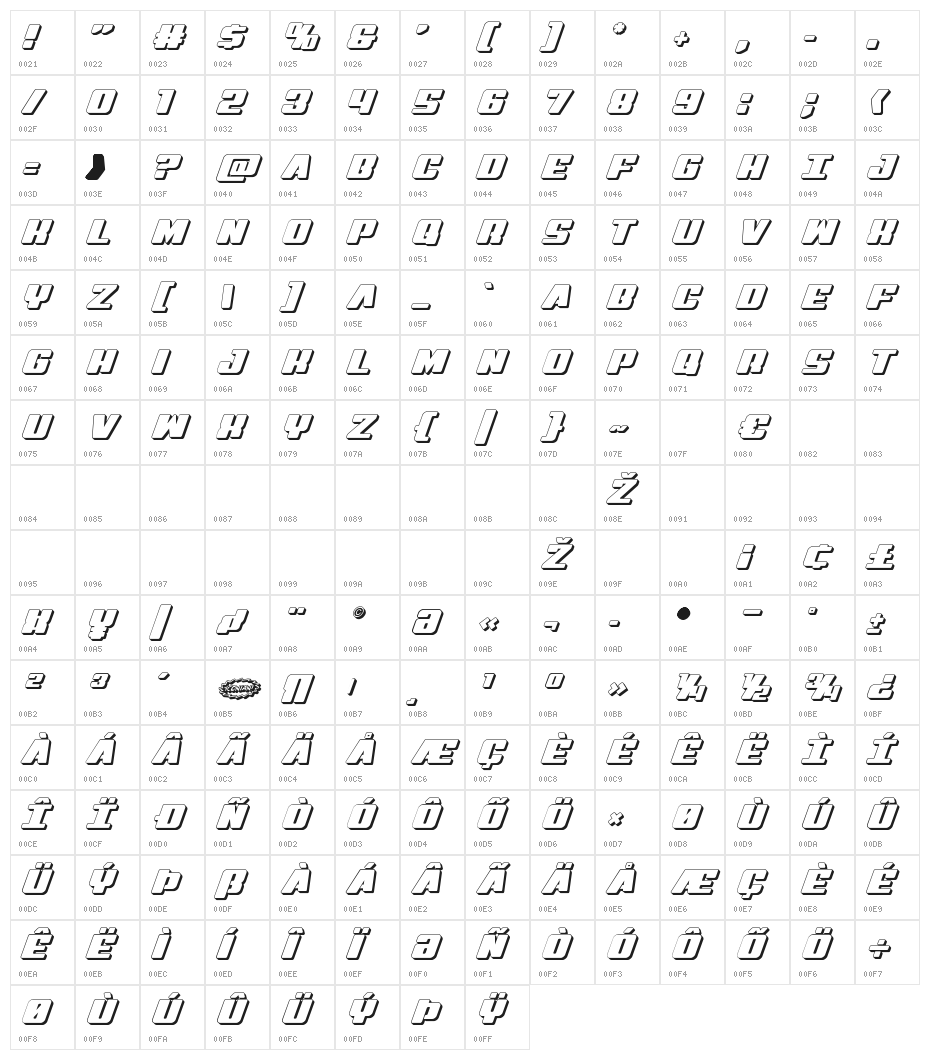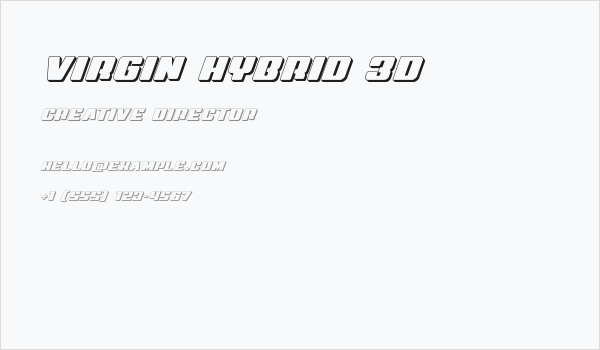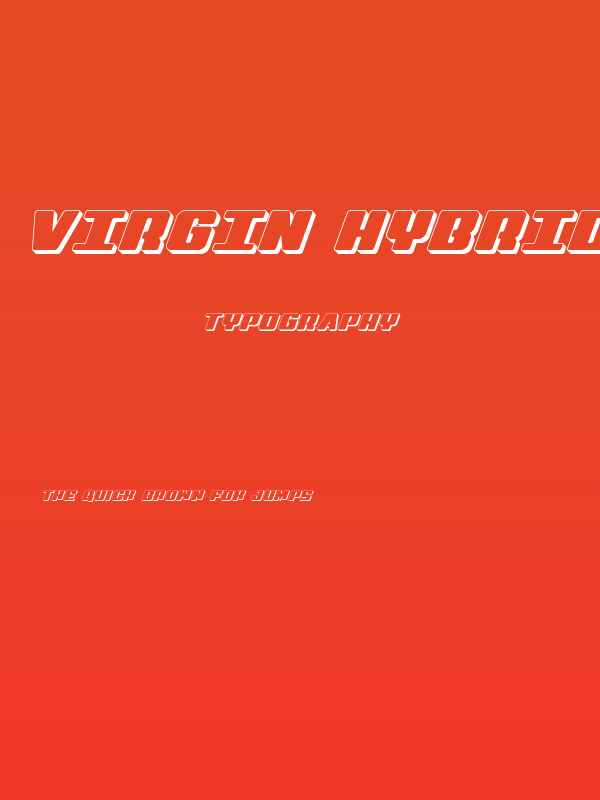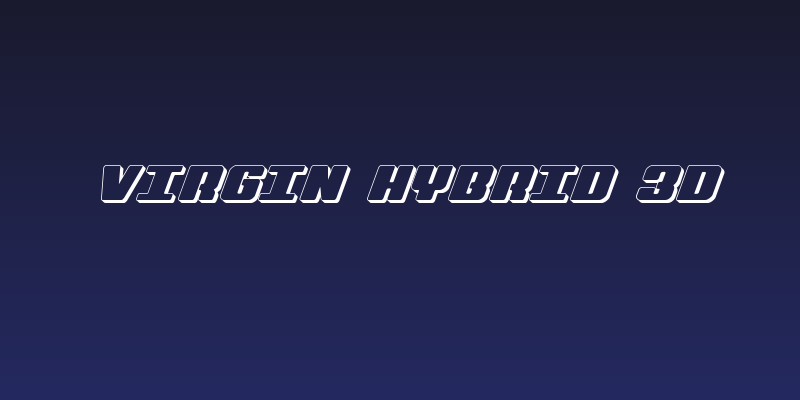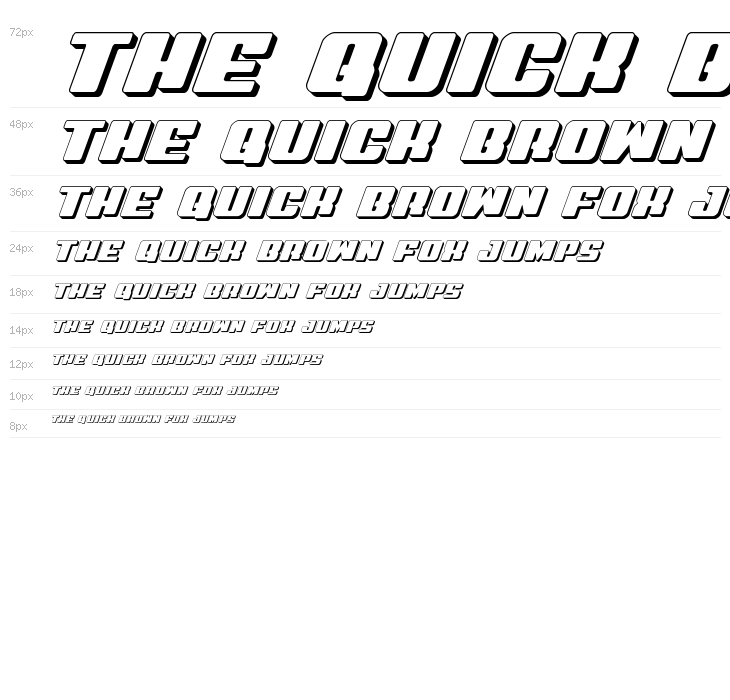
Virgin Hybrid 3D Font
Virgin Hybrid 3D Description
This font features a bold, three-dimensional style with a strong, impactful presence. The characters are designed with a shadow effect that gives them a raised appearance, adding depth and dimension. The edges are sharp and angular, contributing to a modern and futuristic aesthetic. The uppercase letters are uniform in height, while the numbers and special characters maintain the same bold style, ensuring consistency across all elements. The font's design is ideal for making a statement, with its eye-catching and dynamic look.